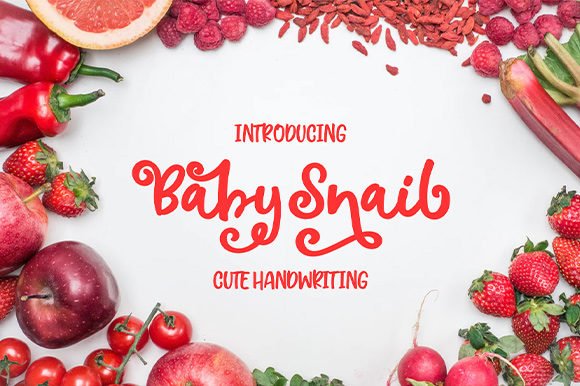
Enter the Baby Snail Font, a delightful handwritten font that’s sure to capture your heart. With its charming ligatures and swashes, this font is perfect for Instagram posts, calligraphy scripts, and any other creative project that requires a touch of personality. As a valuable tool for designers, the Baby Snail Font offers a wealth of special features, including alternate glyphs and ligatures, making it a must-have for anyone looking to take their designs to the next level.
- Unique Characteristics: Baby Snail Font features a playful, whimsical design with rounded edges and a soft, cursive feel, making it perfect for creating a childlike or vintage aesthetic in your designs.
Baby Snail Font Review
I have to say, I was immediately drawn to the whimsical nature of the Baby Snail Font. ✨ The font’s rounded edges and childlike aesthetic make it perfect for creating a playful and youthful vibe in your designs. ✨
One of the things I love about this font is its versatility. It’s suitable for a wide range of projects, from children’s books to nursery decor, and even advertising campaigns targeting a younger demographic. ✨ The font is also highly customizable, allowing you to adjust the size, color, and spacing to suit your specific needs.
- ⚠️ The font may not be suitable for formal or professional projects, as it can come across as too childish or immature.
- ⚠️ The font’s rounded edges can make it difficult to read at smaller sizes, so it’s best to use it at larger font sizes or in conjunction with other fonts.
Overall, I think the Baby Snail Font is a great addition to any designer’s toolkit. While it may have some limitations, its unique aesthetic and versatility make it a valuable resource for creating engaging and playful designs.
Baby Snail Font is perfect for creating designs for children’s products, nursery decor, and educational materials. It’s also great for creating playful and engaging social media graphics, invitations, and posters.